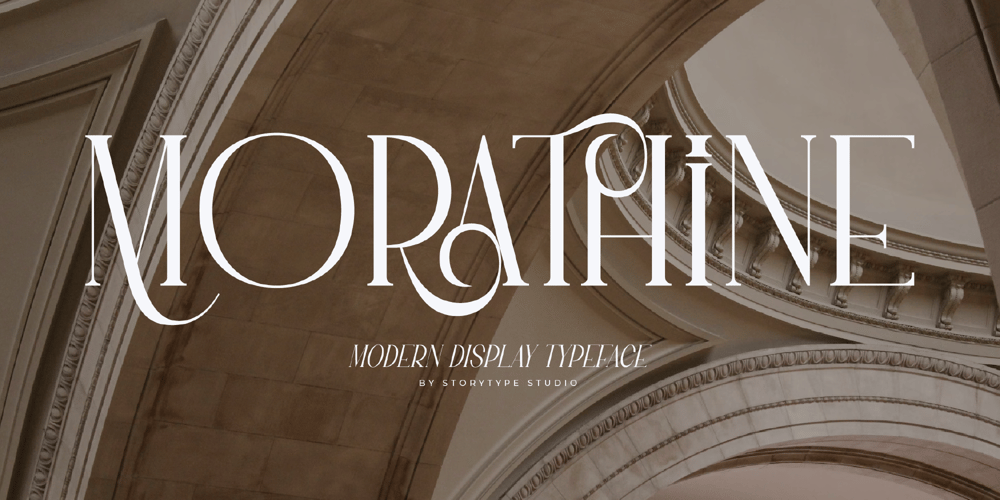
Morathine
Morathine font
Morathine Font Family was designed by Heru Utama Putra and published by Letterena Studios. Morathine contains 2 styles and family package options. Morathine is a serif modern and classic typeface that has its own unique style & modern look.This typeface is perfect for an elegant & luxury logo, book or movie title design, fashion brand, magazine, clothes, lettering, quotes, and so much more.